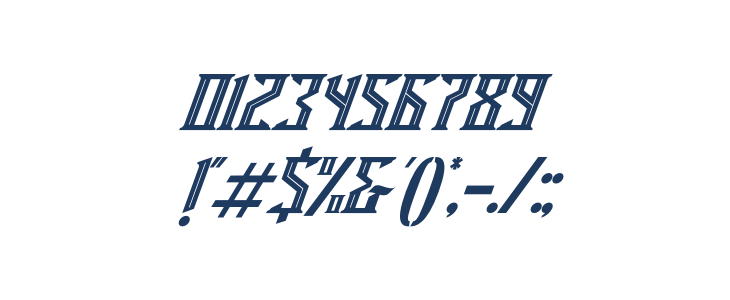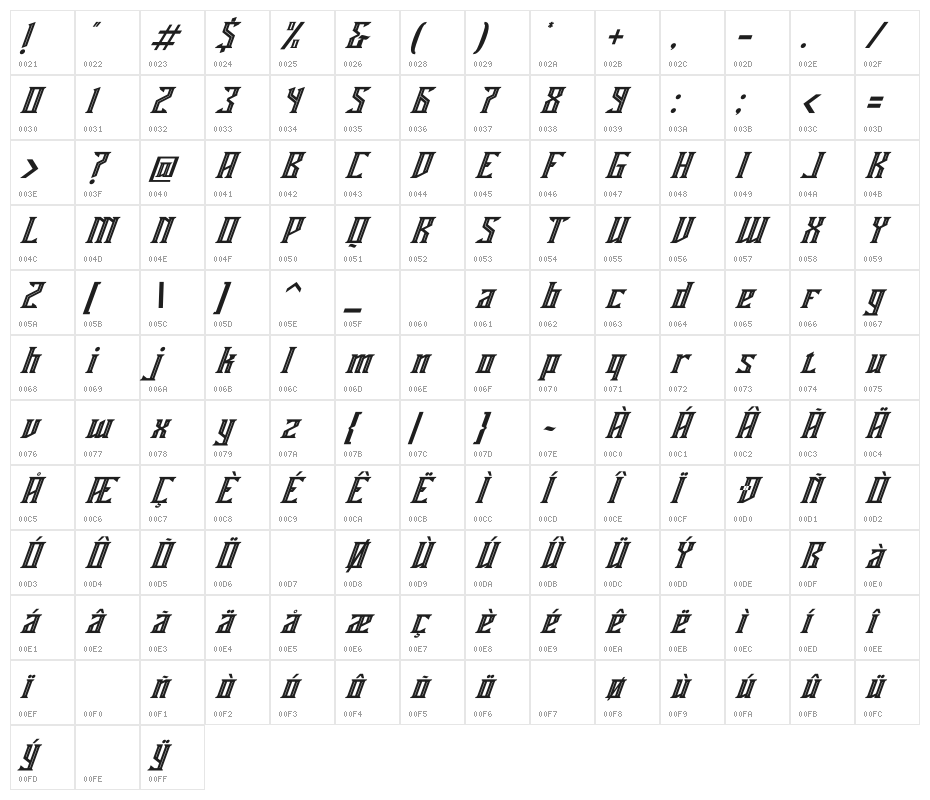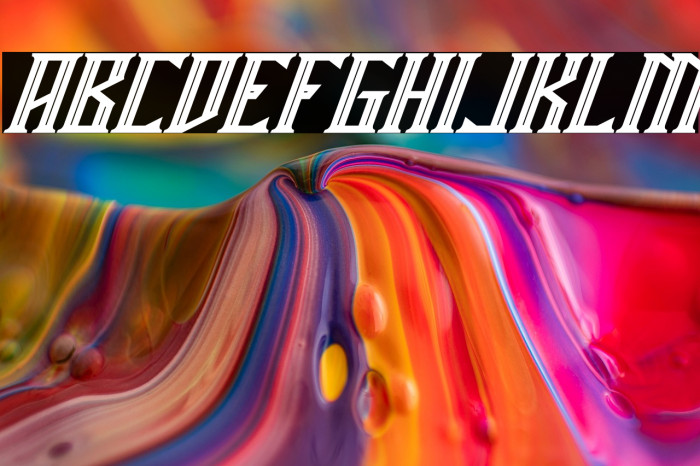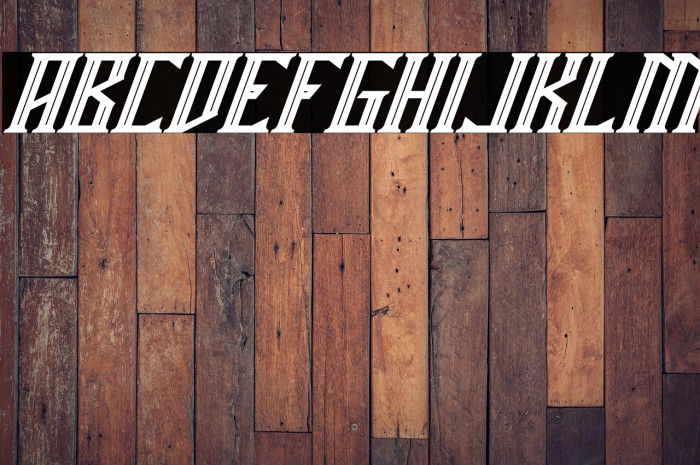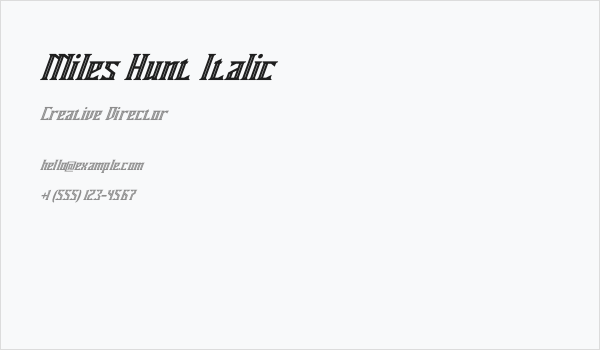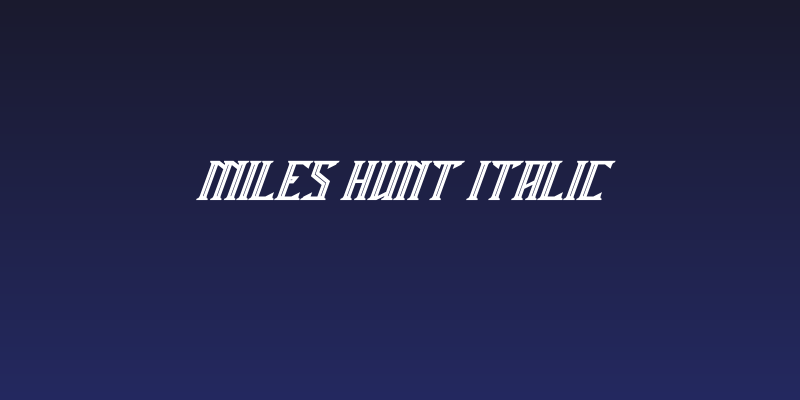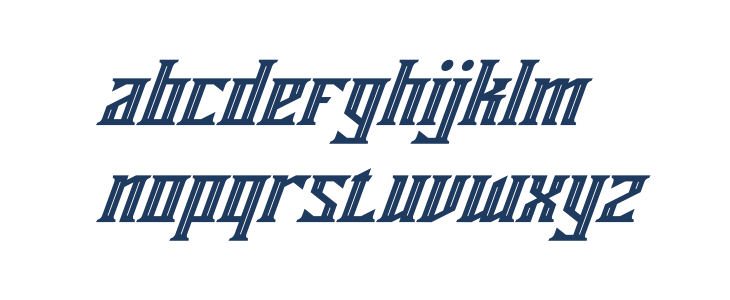
Miles Hunt Italic Font
Miles Hunt Italic Description
This font features a bold and dynamic style with a strong italic slant, giving it a sense of motion and energy. The characters are angular and sharp, with a distinct geometric influence that adds a modern edge. The uppercase and lowercase letters maintain a consistent style, while the numerals and special characters complement the overall design. The strokes are thick, providing a high contrast that enhances readability and impact. This font is ideal for projects that require a bold statement and a contemporary feel.
| Proposed Projects | Ideal for sports branding, dynamic posters, edgy advertisements, and modern logos. |